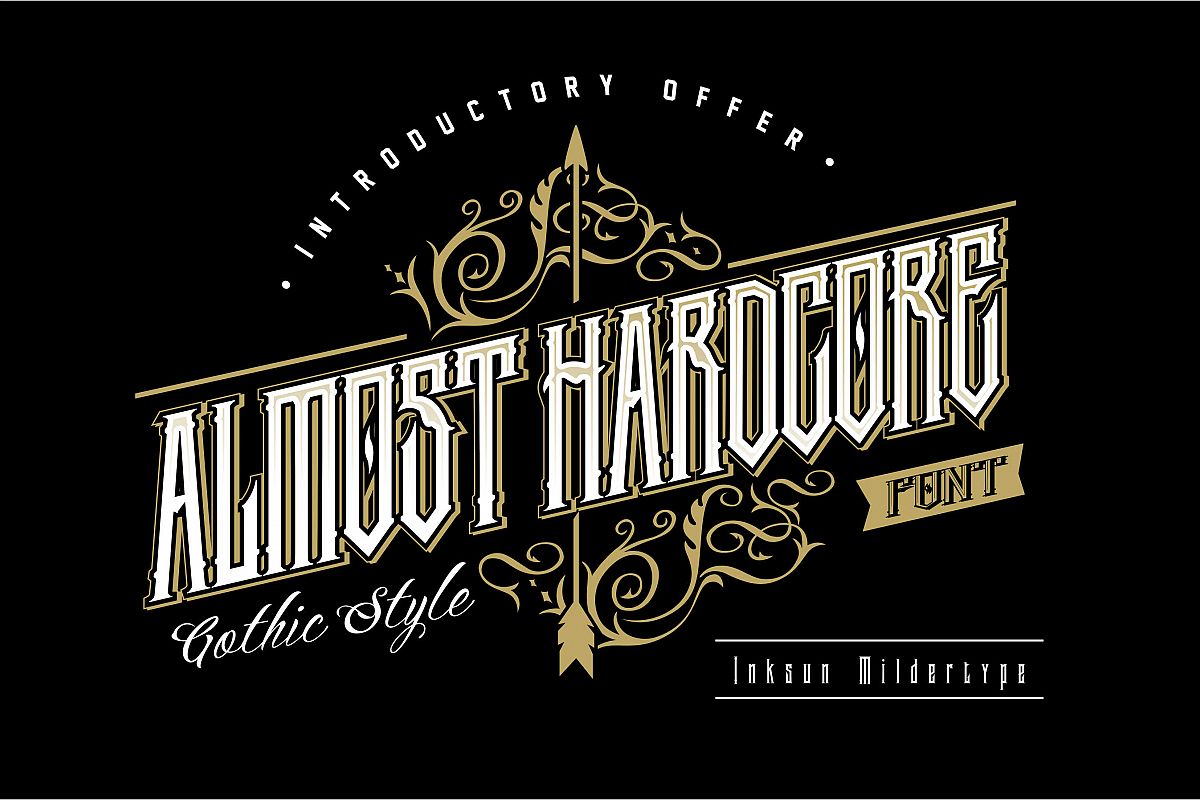
Almost Hardcore
modified with more modern and stylish. This font can be used for t
shirts, posters, bands and others.
on this occasion Almost Hardcore consists only of upercase and lowercase, you